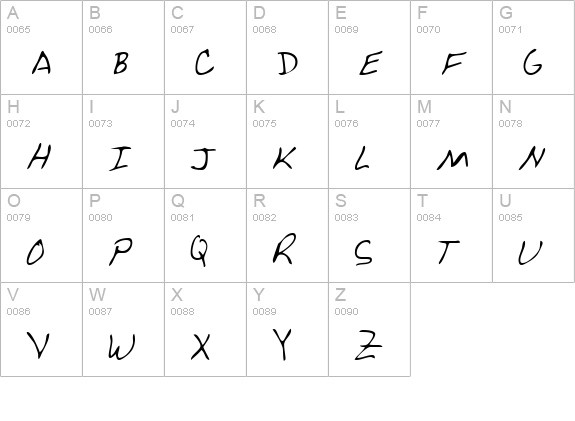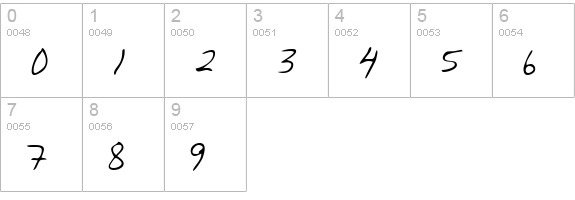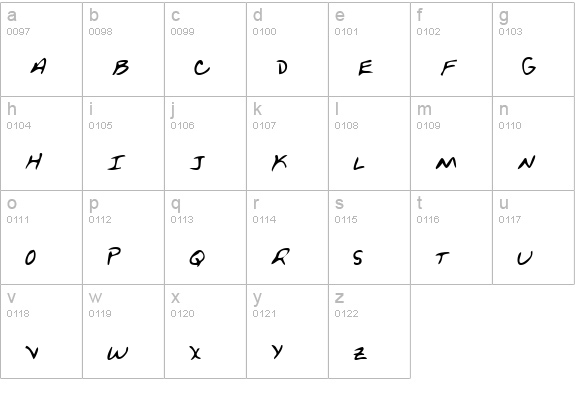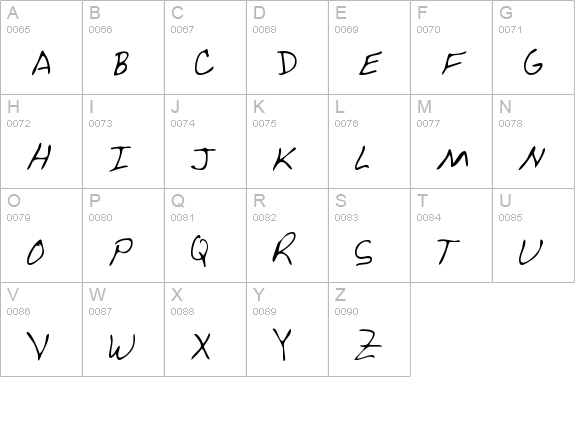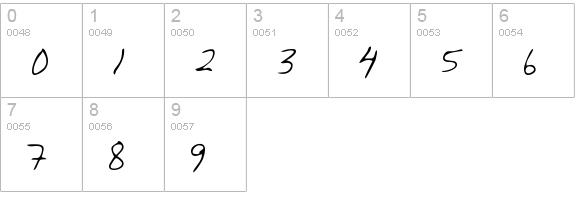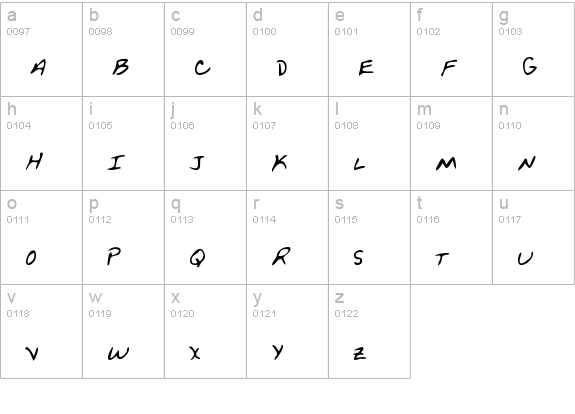
PetersHand Regular is the standard, neutral variant in the PetersHand typeface family \xE2\x80\x94 well suited to general body text, paragraphs, and standard typographic work.
PetersHand Regular is a charming and versatile handwriting font that adds a personal touch to any project. With its smooth and flowing strokes, this font captures the essence of natural handwriting, making it perfect for a wide range of applications. From invitations and greeting cards to logos and branding materials, PetersHand Regular brings a sense of warmth and authenticity to your designs. One of the best parts about PetersHand Regular is that it is completely free! That's right, you can download this amazing font without spending a dime. Thanks to FontsMarket.com, PetersHand Regular is freely available for all your creative endeavors. Whether you're a professional designer or a hobbyist, you can enjoy the benefits of this beautiful font without any cost. The versatility of PetersHand Regular is another reason why it stands out. It is suitable for both print and digital media, allowing you to use it in a variety of projects. The legibility of the characters ensures that your message is conveyed clearly, while the subtle variations in each letter give your text a handcrafted feel. With PetersHand Regular, you can easily create eye-catching headlines, engaging body text, or even add a personal touch to your social media posts. Its friendly and approachable nature makes it perfect for adding a touch of warmth and authenticity to any project. So why wait? Download PetersHand Regular today from FontsMarket.com and bring your designs to life with this incredible font. Whether you're working on a personal project or a client's assignment, PetersHand Regular will be your go-to font for adding a unique and personal touch to your designs. Best of all, it's free!